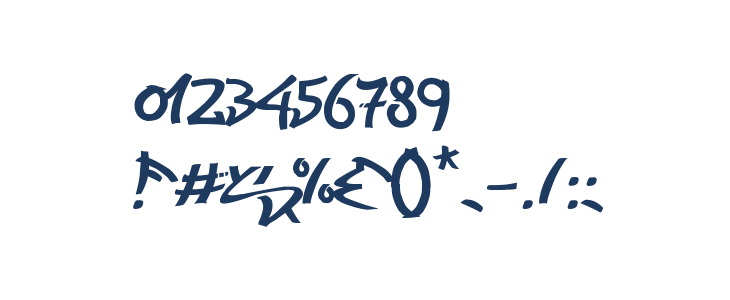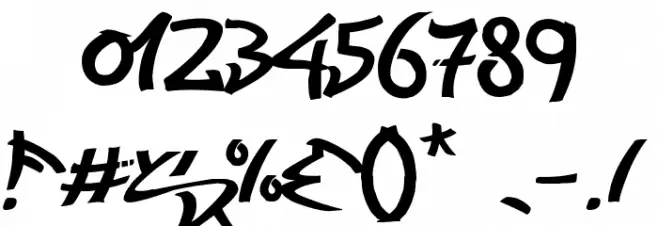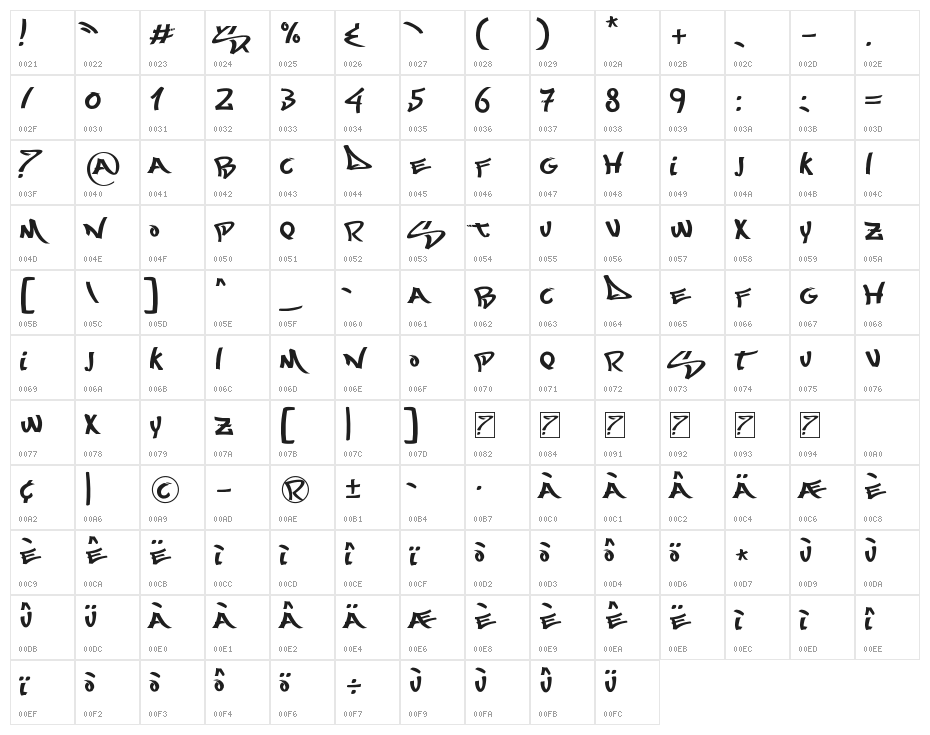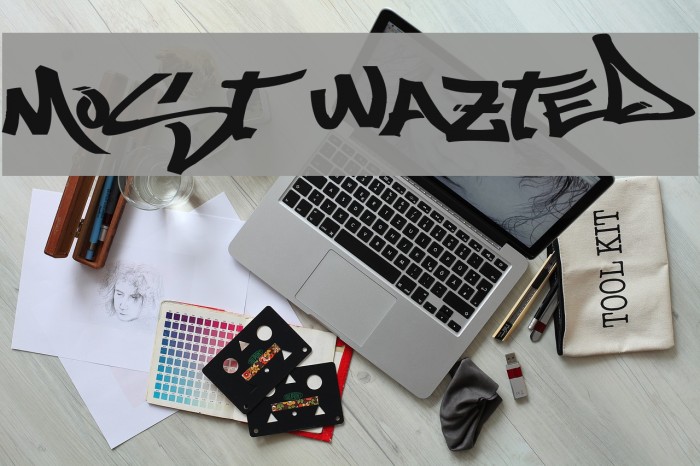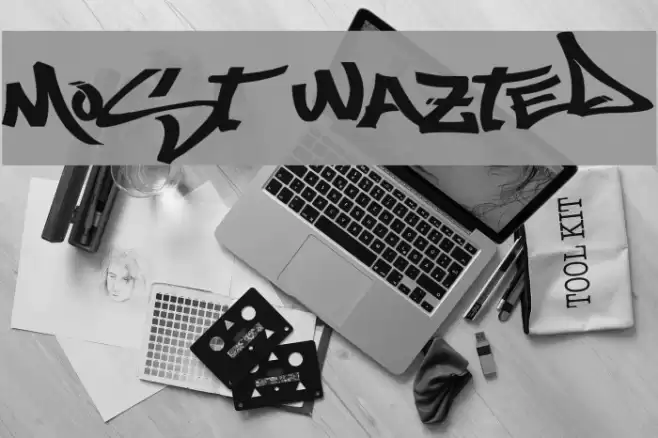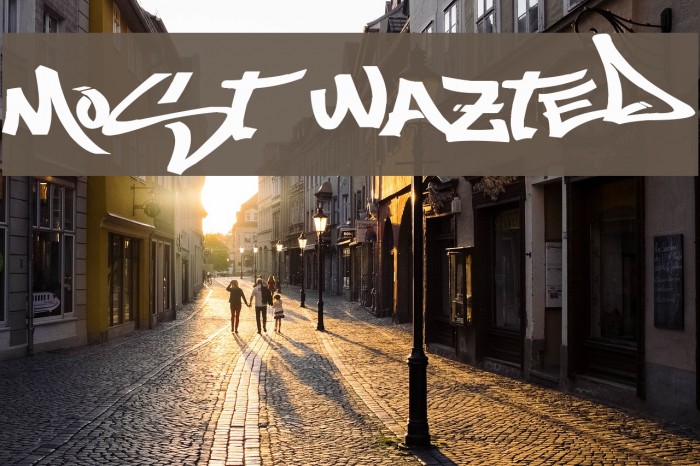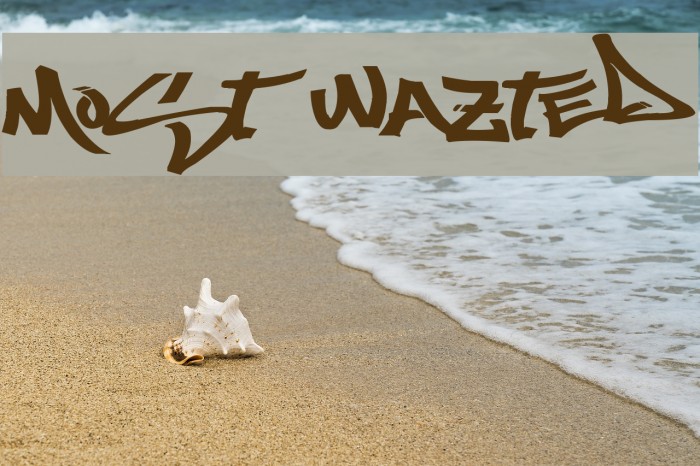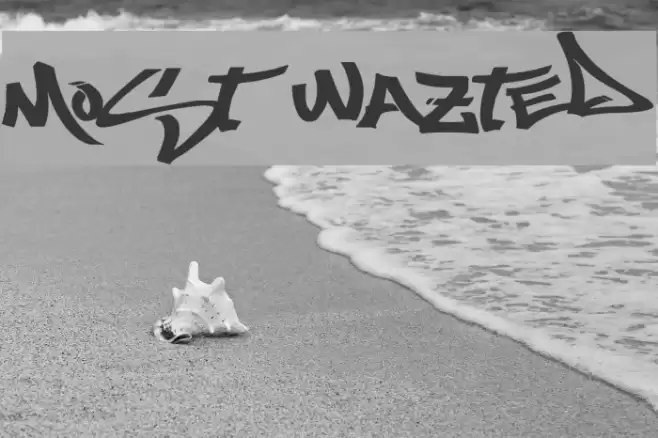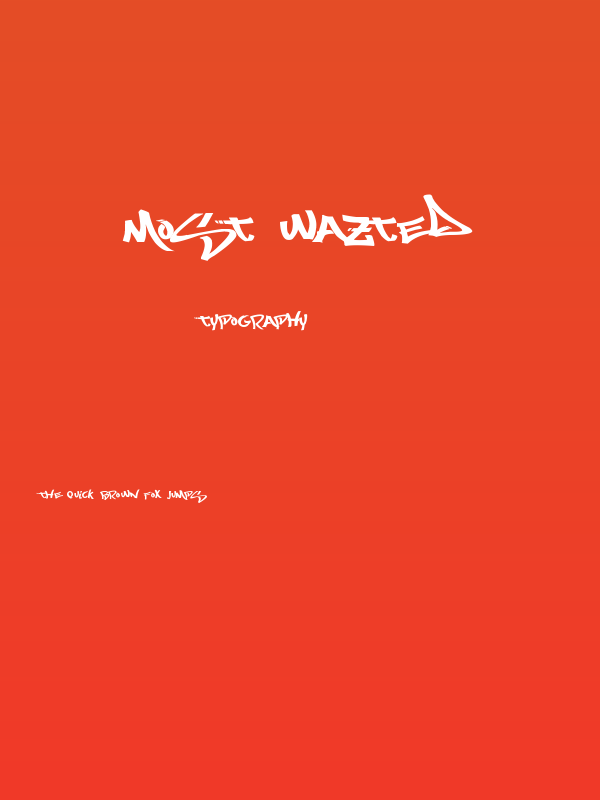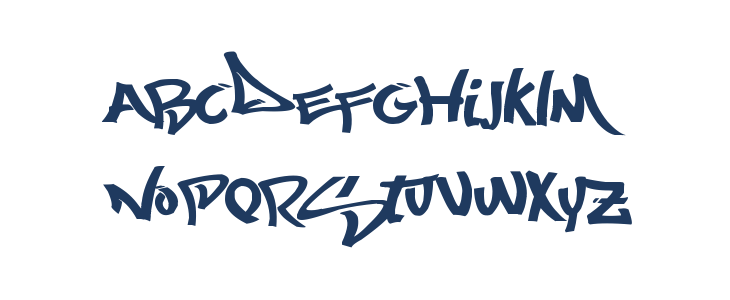
Most Wazted Font
Most Wazted Description
This font features a bold, graffiti-inspired style with sharp, angular lines and dynamic strokes. The uppercase and lowercase letters exhibit a sense of movement and energy, reminiscent of street art. The characters are designed with a playful yet edgy aesthetic, making them stand out with their unique flair. Numbers and special characters maintain the same energetic style, ensuring consistency across all elements. The font's design is both artistic and rebellious, capturing the essence of urban culture.
| Overall Style | Urban, Edgy, Artistic |
| Use Case | Logos, Posters, Album Covers |
| Proposed Projects | Ideal for street art designs, urban-themed posters, music album covers, and edgy branding projects. |